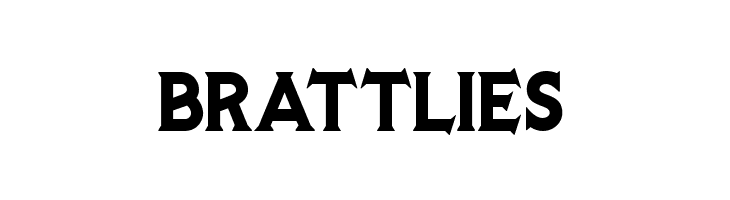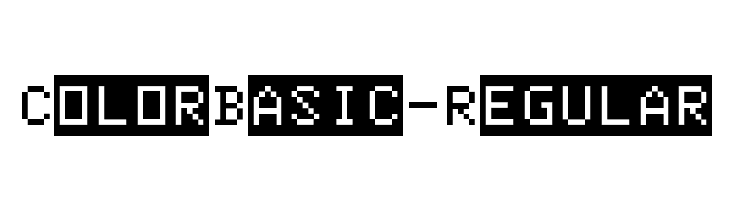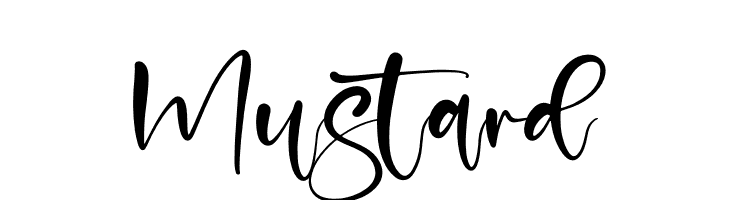
A bold, angular serif font with a striking and aggressive design.
A refined serif typeface with a slight italic slant and light weight.
A dynamic, expressive handwritten font with brush-like strokes.
A bold, geometric font with sharp angles and a blocky appearance.
A bold, decorative font with a three-dimensional shadow effect.
A modern, geometric inline font with a bold and minimalistic design.
A playful, handwritten font with a whimsical and informal style.
A bold, brush-style font with dynamic, hand-painted strokes.
A graceful and flowing script font with a natural handwritten style.
A modern, elegant script font with high contrast and flowing cursive letters.